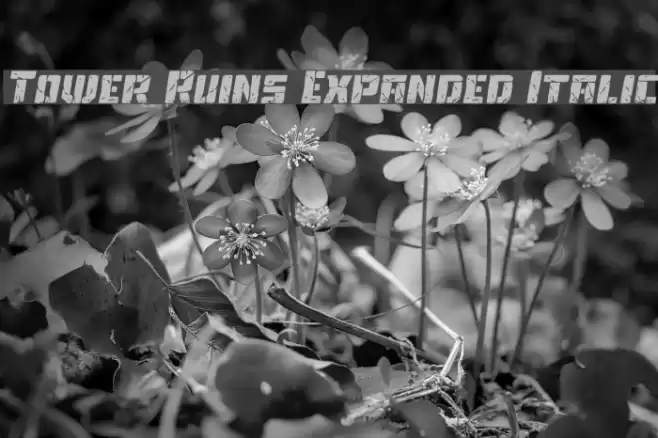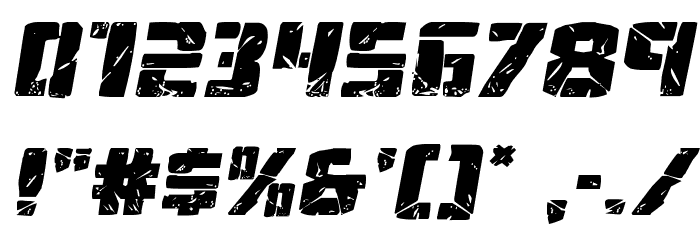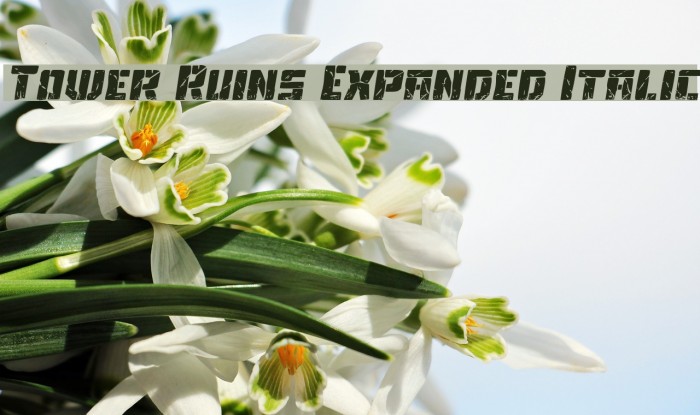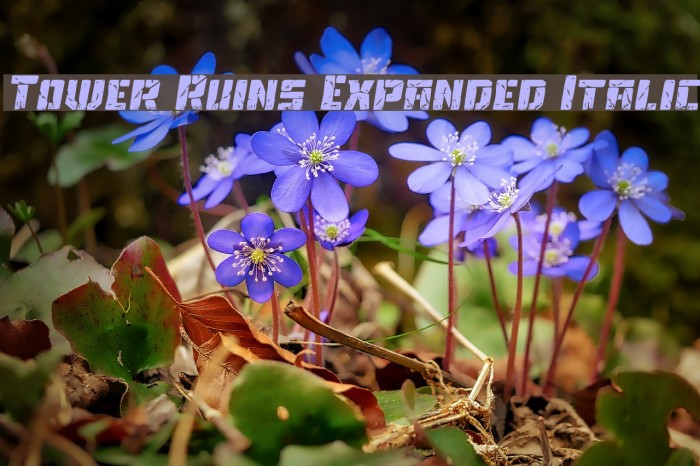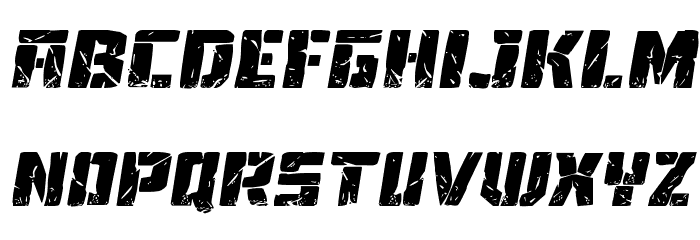
Tower Ruins Expanded Italic Font
Tower Ruins Expanded Italic Description
This font features a bold and rugged design with a distressed texture that gives it a worn, weathered appearance. The characters are expanded and italicized, adding a dynamic and edgy feel. The uppercase and lowercase letters maintain a consistent style, with sharp angles and a blocky structure. The numbers and special characters follow the same aesthetic, ensuring uniformity across all glyphs. This font's unique style makes it stand out, ideal for projects that require a strong, impactful visual presence.
A bold, distressed, expanded italic font with a rugged, weathered look from Fancy fonts.
- Proposed Projects: Ideal for posters, album covers, video game graphics, and branding that requires a bold, edgy appearance.